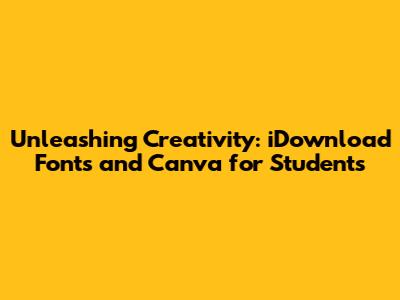
Hey everyone! Are you a student diving into the world of design with Canva? If so, you're probably already aware of the awesome power this platform provides. Canva is an incredible tool for creating visually stunning graphics, presentations, social media posts, and so much more. But let's be real, sometimes you need that extra oomph, that unique touch that sets your designs apart from the crowd. And that's where the magic of iDownload fonts comes in. In this article, we'll explore how you, as a student, can elevate your Canva game by incorporating custom fonts. We'll dive into why fonts are so important, how to find them, how to iDownload fonts, and how to integrate them into your Canva projects. Get ready to transform your designs from good to great!
Canva, in its free and even paid versions, offers a fantastic library of fonts. However, the available options might feel a bit limited when you're aiming for a truly personalized and distinctive look. This is especially true if you're working on projects that require a specific aesthetic, like branding for a student organization, creating a unique presentation for a class, or designing eye-catching social media content. That's where custom fonts become essential. Choosing the right font can dramatically influence how your message is received. It can evoke emotions, establish a brand identity, and make your designs more memorable. But how do you go about finding and using these fonts? That's what we're going to break down, step by step, for all you aspiring student designers. So buckle up, because we're about to embark on a typography adventure!
The Power of Typography: Why Fonts Matter in Student Design
Alright, let's talk about why fonts are so darn important, especially for students like yourselves. Think of a font as the voice of your design. It sets the tone, communicates a mood, and helps your audience understand what you're trying to say, even before they read a single word. Fonts aren't just about making text legible; they're about visual communication. They can be playful, serious, elegant, or bold. The right font choice can make or break your design. Imagine trying to create a fun, lighthearted poster for a school event using a super formal, serious font. It just wouldn't work, right? The font would clash with the event's vibe. Conversely, a formal presentation about a complex scientific topic would likely suffer if you used a cartoonish, overly casual font. This is why paying attention to typography is crucial.
Now, as students, you're likely working on a variety of projects. You might be designing presentations for class, creating social media graphics for your clubs, or even putting together resumes and portfolios. In each of these scenarios, the font you choose can significantly impact the effectiveness of your communication. Using the right font shows attention to detail, reflects your understanding of design principles, and makes your work look more professional. And let's be honest, in a world where visual communication is king, making a good first impression is key. A well-chosen font can also help you stand out from the crowd. In a sea of generic designs, a unique font can make your work memorable and help you establish your personal brand. This is particularly valuable for students who are building their portfolios or looking to gain experience in design. Think of it this way: fonts are like the clothes your design wears. They can be the difference between looking sharp and looking like you just rolled out of bed. And with the abundance of resources available, including the ability to iDownload fonts, there's no reason not to make the most of this powerful design element!
Finding Your Font Soulmate: Where to Discover Amazing Fonts for Free and Premium
So, where do you find these amazing fonts? The good news is, there are tons of resources out there, both free and premium, that offer a vast selection of fonts to choose from. Let's explore some of the best places to discover your font soulmate. For free fonts, Google Fonts is an absolute goldmine. This website offers a massive library of high-quality, open-source fonts that you can download and use for free, even for commercial projects. The fonts are well-organized, easy to browse, and you can even filter them based on categories like serif, sans-serif, handwriting, and monospace. It's a fantastic starting point for any student designer. Another great option is Font Squirrel. They curate a collection of free, high-quality fonts that are licensed for commercial use. They also have a handy font identifier tool that can help you identify fonts you see in other designs.
Now, for those looking to expand their options, premium font websites offer a wider selection of professionally designed fonts. These often come with more advanced features and are perfect for projects where you need a polished and distinctive look. Some popular premium font sites include Creative Market, MyFonts, and Adobe Fonts (if you have an Adobe Creative Cloud subscription). The investment in a premium font can often be worth it, especially if you're working on projects where design quality is a top priority. When choosing a font, consider the context of your design, the overall aesthetic, and the message you want to convey. Experiment with different fonts, try pairing them, and see what works best for your specific project. Finding the perfect font can sometimes be a process of trial and error, but with the right resources and a little bit of exploration, you'll find the perfect fonts to elevate your designs!
iDownload Fonts for Canva: A Step-by-Step Guide for Students
Okay, so you've found a font you love and you're ready to get it into Canva. Here's a step-by-step guide on how to iDownload fonts and integrate them into your Canva projects. This process is generally straightforward, but it's important to follow the instructions carefully to ensure the fonts work correctly.
First, you will need to iDownload fonts from the website you chose. Most websites will have a download button or link. After you click the download, the font will typically come in a zip file. Unzip the file and then locate the font files. These files usually have extensions like .ttf (TrueType font) or .otf (OpenType font).
Next, head over to Canva and open the design you want to work on or create a new one. Find the text tool, which is usually located in the left-hand menu. Click on it to add a text box to your canvas. Inside the text tool, find the font selection dropdown. This is where you can change the font of your text. Click on the dropdown menu to open the font list. Now, you should see an option to upload a font. Click on it. This option will be marked with something like "Upload a font" or a plus sign. Then, a file explorer window will open. Use this window to navigate to the location where you saved your downloaded font files. Select the font file you want to upload (the .ttf or .otf file) and click "Open". Canva will then upload the font. Keep in mind that Canva may take a moment to upload the font. Once the font is uploaded, it will appear in your font list within Canva. You can now select this font and apply it to your text! And there you have it – your custom font is now ready to use in your Canva design.
Note that not all Canva accounts support custom font uploads. This feature is often available in Canva Pro or Canva for Education. If you can't find the option to upload a font, you may need to upgrade your account or check if you are logged in to the right account. Also, it's very important to respect the font's license. Only upload and use fonts that you have the right to use. Always check the license to ensure that you can use the font for your intended purpose, especially if it's for commercial use. Now, with your custom font in place, unleash your creativity and create designs that truly stand out!